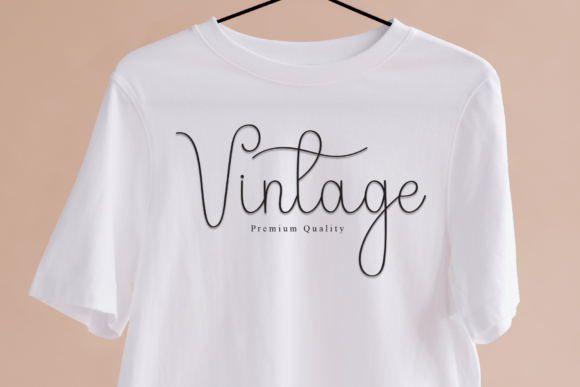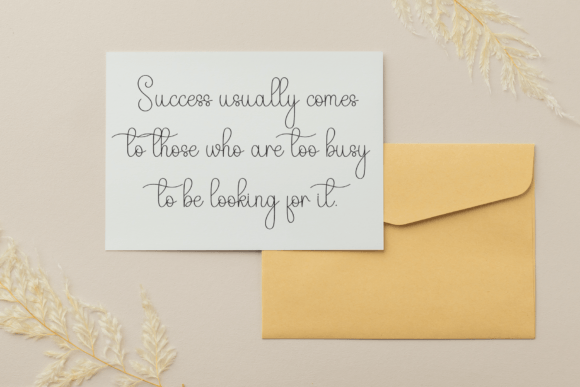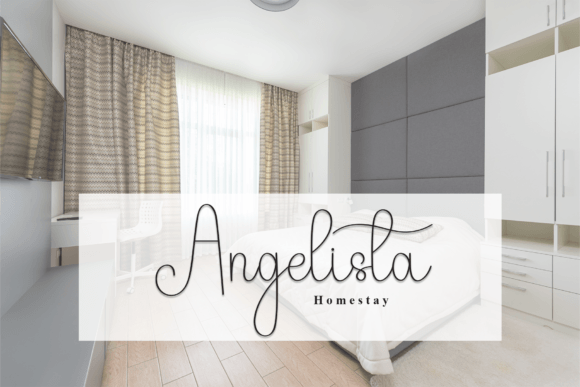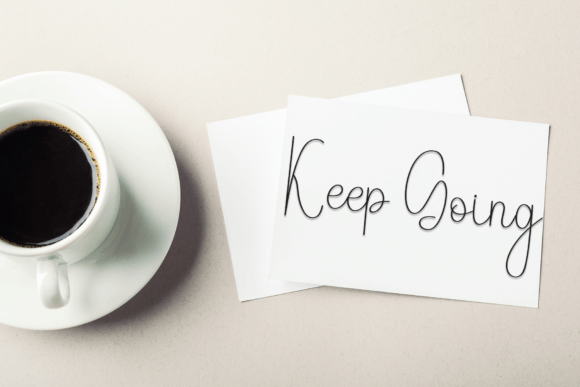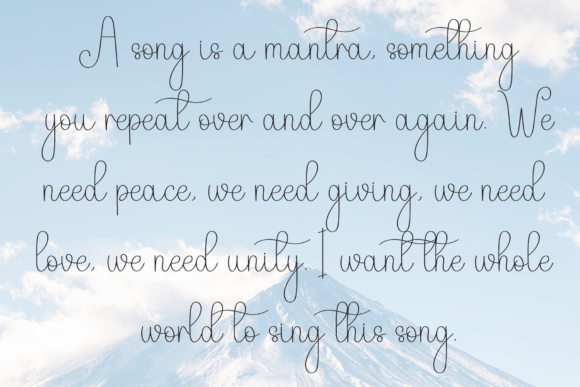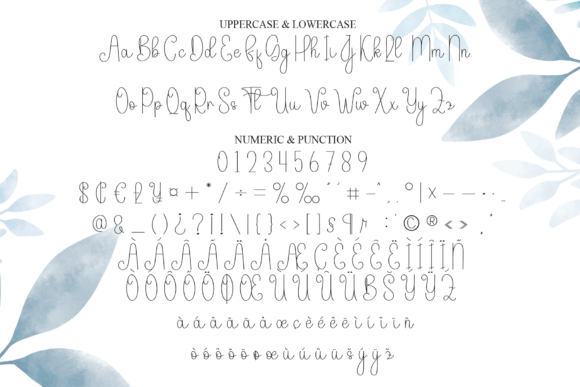
Introducing Greating Font: The Sweetest Way to Add Whimsy to Your Designs
Are you tired of using the same old fonts for your wedding invitations, greeting cards, and other designs? Do you want to add a touch of playful charm and whimsy to your projects? Look no further than Greating Font, a delightful handwritten display font that is sure to bring a smile to anyone’s face. In this article, we’ll introduce you to the adorable allure of Greating Font and explore how it can elevate your designs to the next level.
The Charm of Greating Font
Greating Font is a beautifully sweet and heartwarmingly amiable handwritten display font that is perfect for adding a dash of playful charm to your designs. With its adorable allure, this font is sure to capture the hearts of anyone who sees it. Whether you’re designing wedding invitations, greeting cards, or any other project that needs a touch of whimsy, Greating Font is the perfect choice.
What sets Greating Font apart from other fonts is its unique blend of playfulness and elegance. The font’s handwritten style gives it a personal and intimate feel, making it perfect for designs that require a touch of warmth and personality. At the same time, its elegant lines and curves ensure that it remains sophisticated and refined, making it suitable for even the most formal designs.
Beyond Just Letters: An Art Form
Greating Font is more than just a font – it’s an art form. With its intricate lines and curves, it’s a masterpiece that can add a touch of joyous delight to any project. When you use Greating Font, you’re not just typing out words – you’re creating a work of art that will leave a lasting impression on your audience.
One of the things that makes Greating Font so special is its ability to evoke emotions. The font’s playful and whimsical style is sure to bring a smile to anyone’s face, making it perfect for designs that require a touch of humor or lightheartedness. At the same time, its elegant and refined style ensures that it can also be used for more formal designs that require a touch of sophistication.
Greating Font is perfect for designers and crafters who want to add a touch of personality to their projects. Whether you’re designing wedding invitations, greeting cards, or any other type of project, this font is sure to help you stand out from the crowd.
For designers, Greating Font offers a wide range of possibilities. You can use it to create custom wedding invitations, save-the-date cards, and other stationery that will make your clients’ special day even more memorable. You can also use it to create eye-catching headlines and titles for your designs, adding a touch of whimsy and personality to your work.
For crafters, Greating Font is perfect for creating handmade cards, gift tags, and other paper crafts. The font’s playful and whimsical style is sure to add a touch of personality to your creations, making them extra special and meaningful.
Tips for Using Greating Font
Here are a few tips for using Greating Font in your designs:
- Use it sparingly: Greating Font is a bold and eye-catching font, so it’s best to use it sparingly to avoid overwhelming your design. Use it for headlines, titles, and other important text to add a touch of whimsy and personality.
- Pair it with a simple font: To create a balanced design, pair Greating Font with a simple font that provides a clean and elegant contrast. This will help your design stand out without overwhelming the viewer.
- Experiment with colors: Greating Font looks great in a variety of colors, so don’t be afraid to experiment and find the perfect hue for your design. Pastel colors, bright colors, and metallic colors all work well with this font.
In conclusion, Greating Font is a delightful handwritten display font that is sure to add a touch of playful charm and whimsy to your designs. With its adorable allure and elegant lines, it’s perfect for designers and crafters who want to create unique and eye-catching projects. Whether you’re designing wedding invitations, greeting cards, or any other type of project, Greating Font is sure to help you stand out from the crowd. So why not give it a try and see the joyous delight it can bring to your designs?